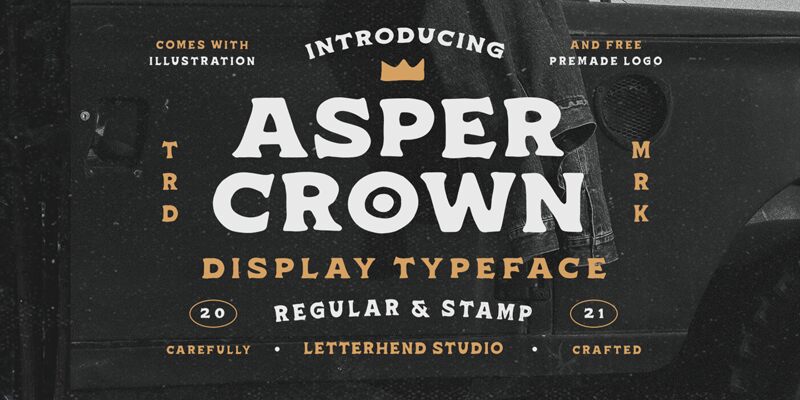
Asper Crown is a bold and wide display font created by Septianto Nugroho. Inspired by retro typefaces, this stylish font is perfect for adding a vintage look to your projects. Make an impact with its bold letterforms and eye-catching curves. Use it for logos, headlines, posters or any other design project that needs a touch of nostalgia.
Asper Crown